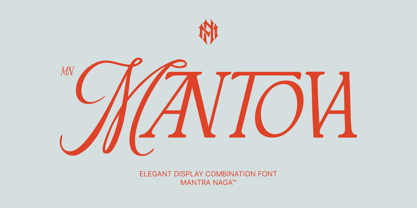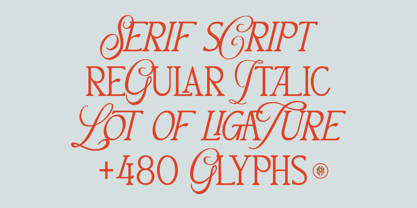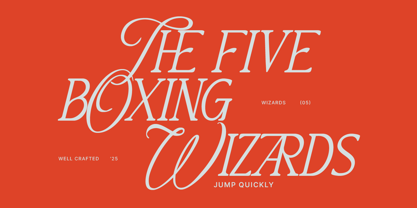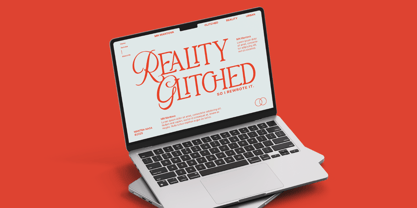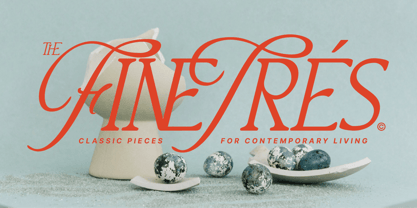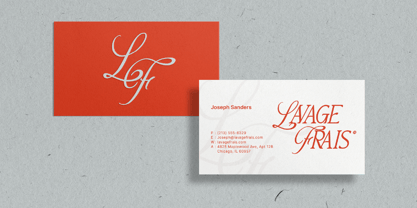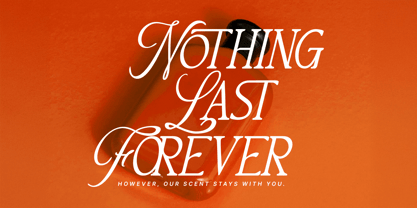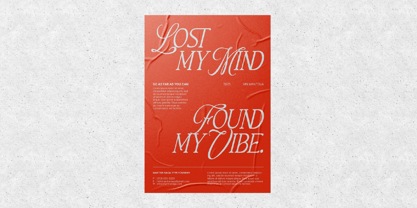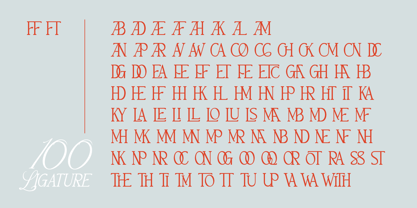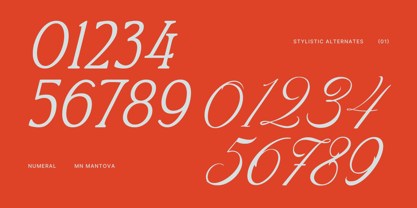
MN Mantova
by Mantra Naga Studio
MN Mantova is a stylish elegant display combination font that combines script and serif, classic and modern elements. With Regular and Italic styles, plus 100 ligatures and alternates, it gives designers plenty of creative options. Featuring 480+ glyphs and support for 94 languages, Mantova is perfect for branding, editorials, invitations, and luxury packaging.